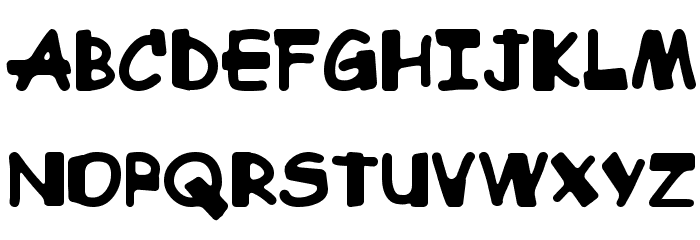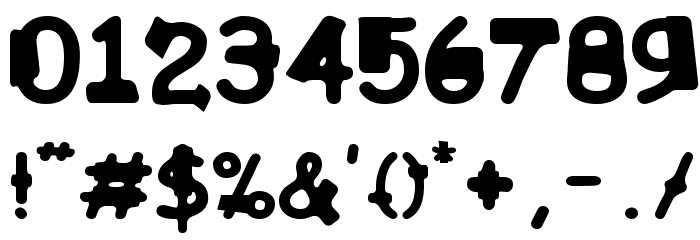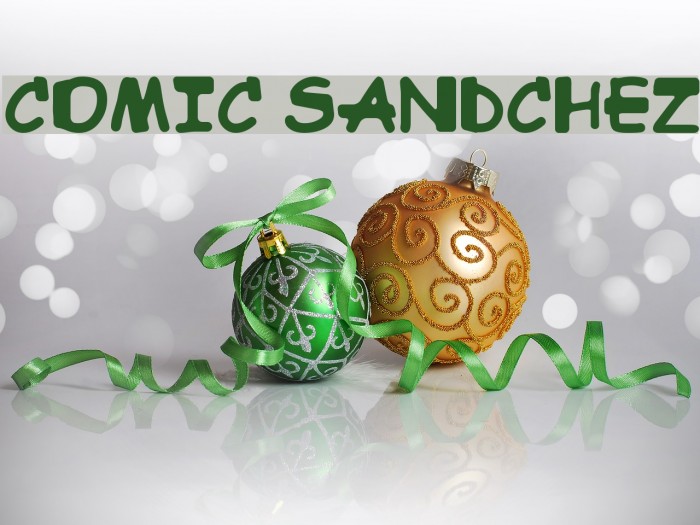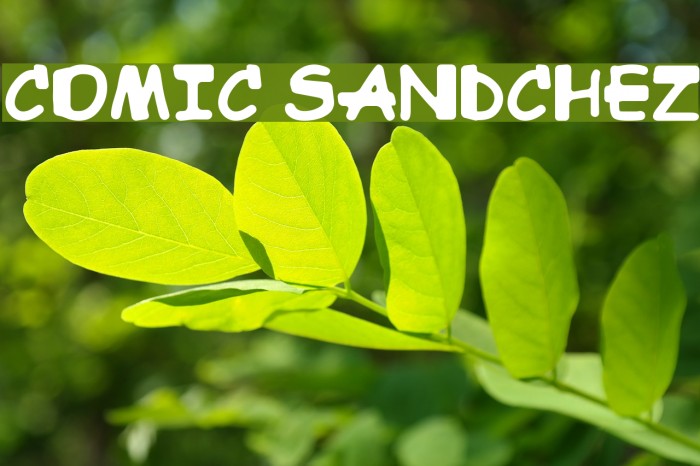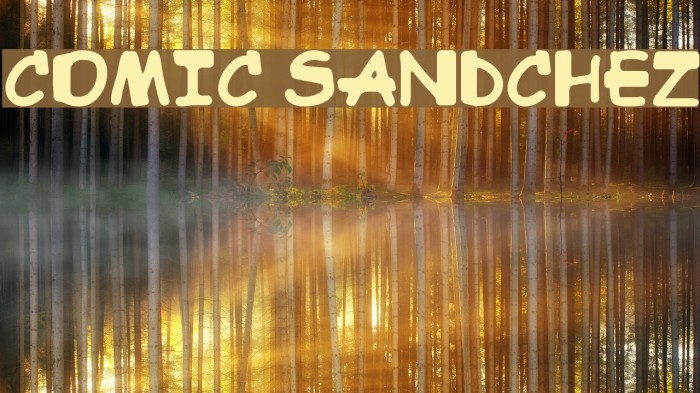
Comic Sandchez Font
This playful and bold font features a cartoonish style with thick, rounded strokes that give it a friendly and approachable appearance. The letters are slightly irregular, adding a whimsical touch that makes it stand out. The uppercase and lowercase characters maintain a consistent style, while the numbers and special characters are designed to match the overall playful theme. Its boldness ensures high visibility, making it suitable for eye-catching designs.
A bold, cartoonish font with thick, rounded strokes and a playful style.
- Proposed Projects: Ideal for children's books, comic strips, playful branding, and fun event invitations.
- Overall Style: Playful, Cartoonish